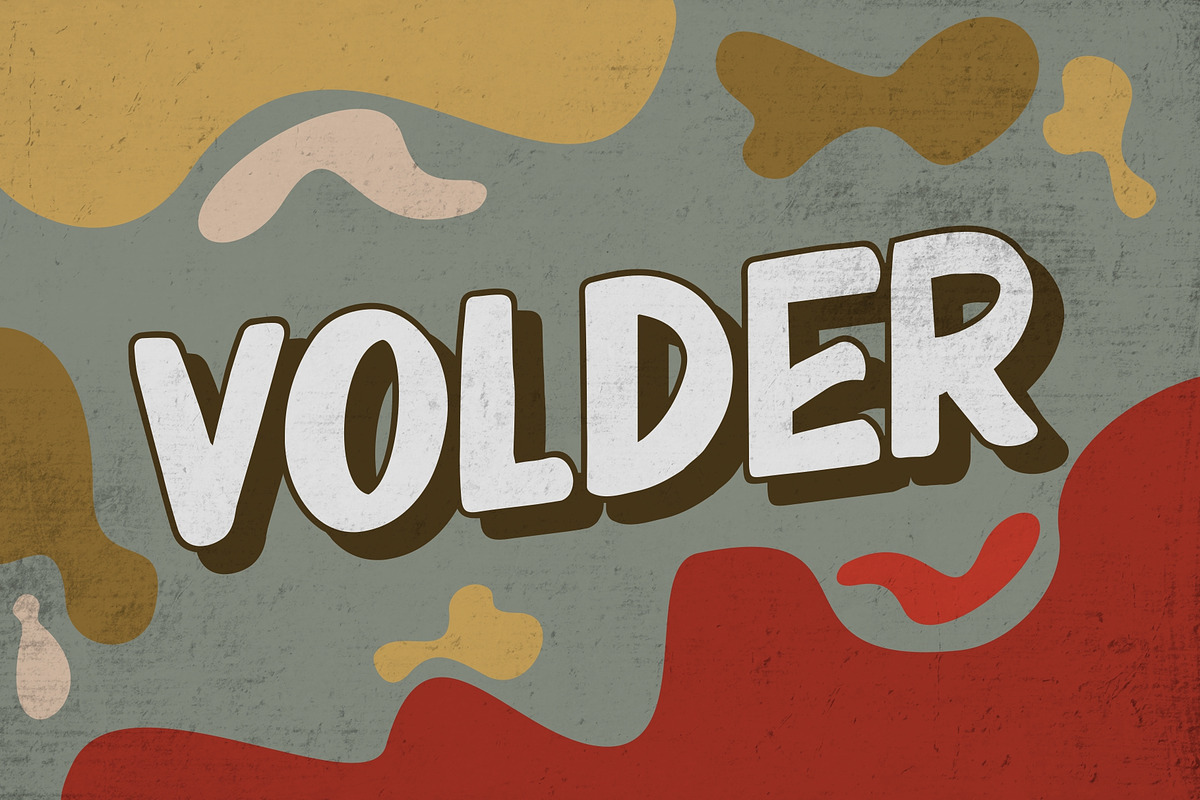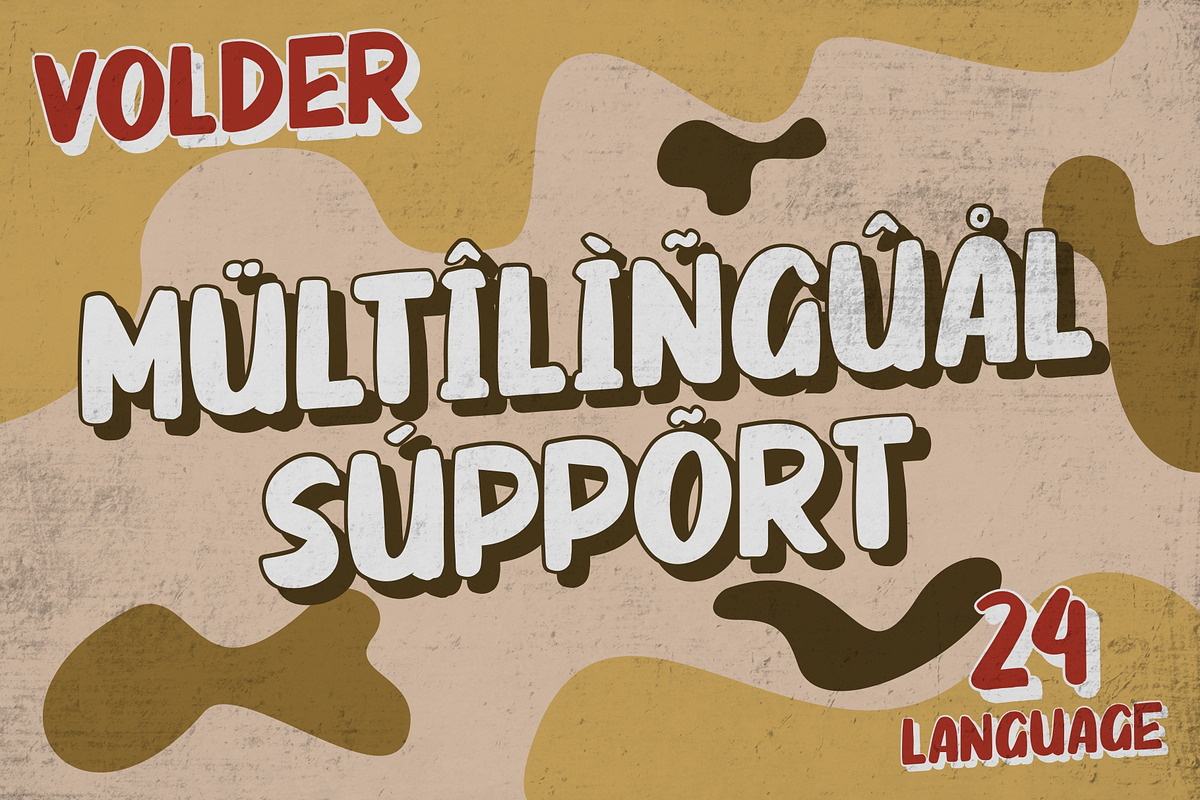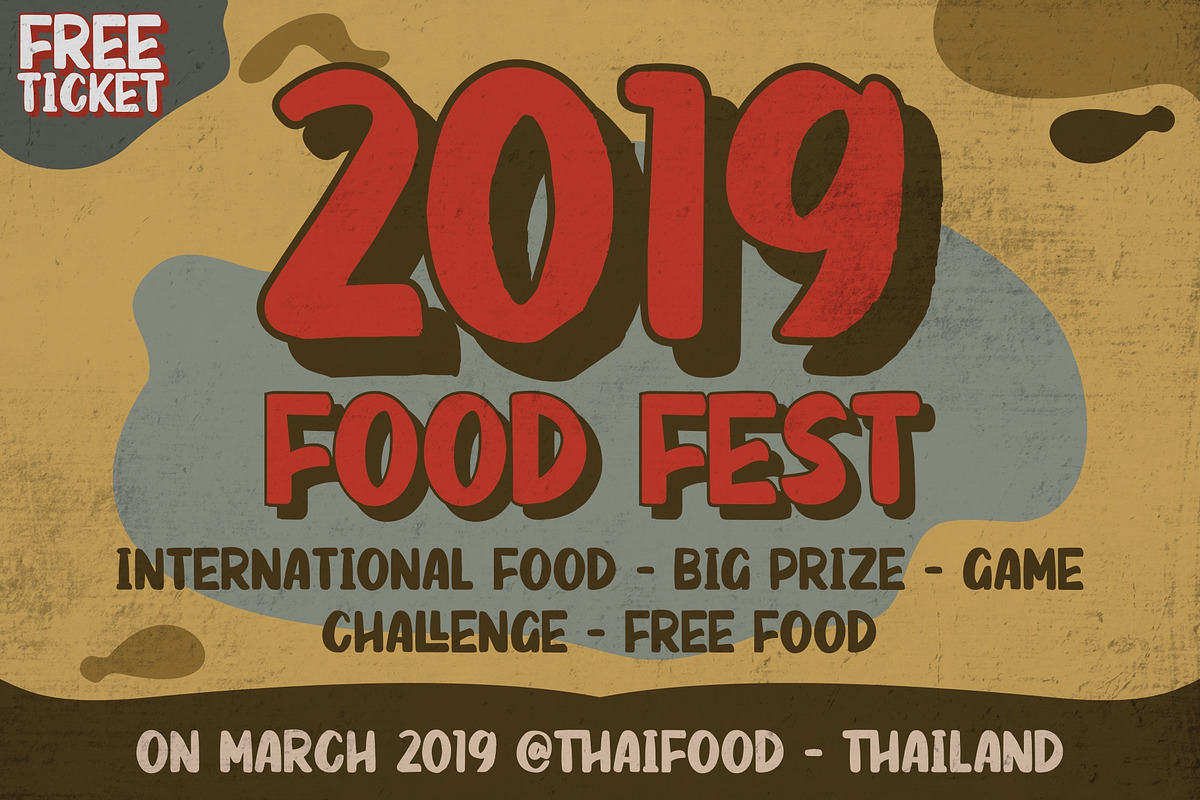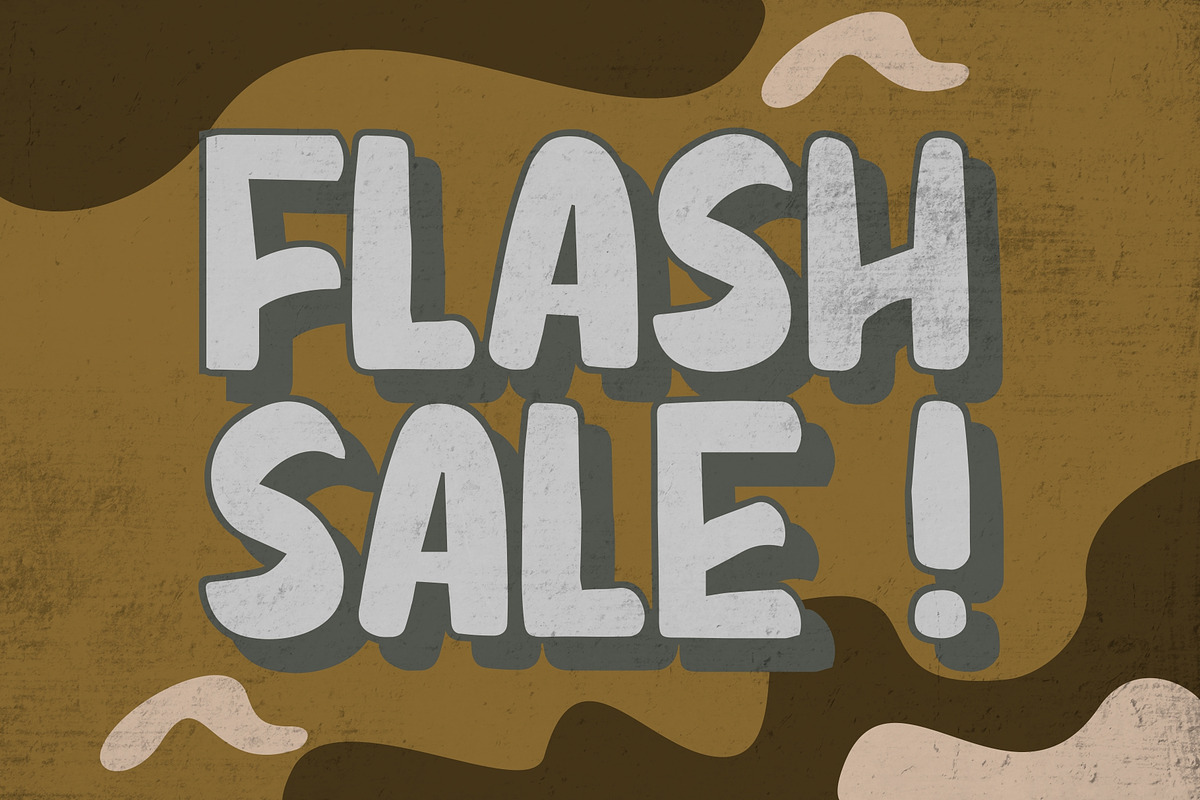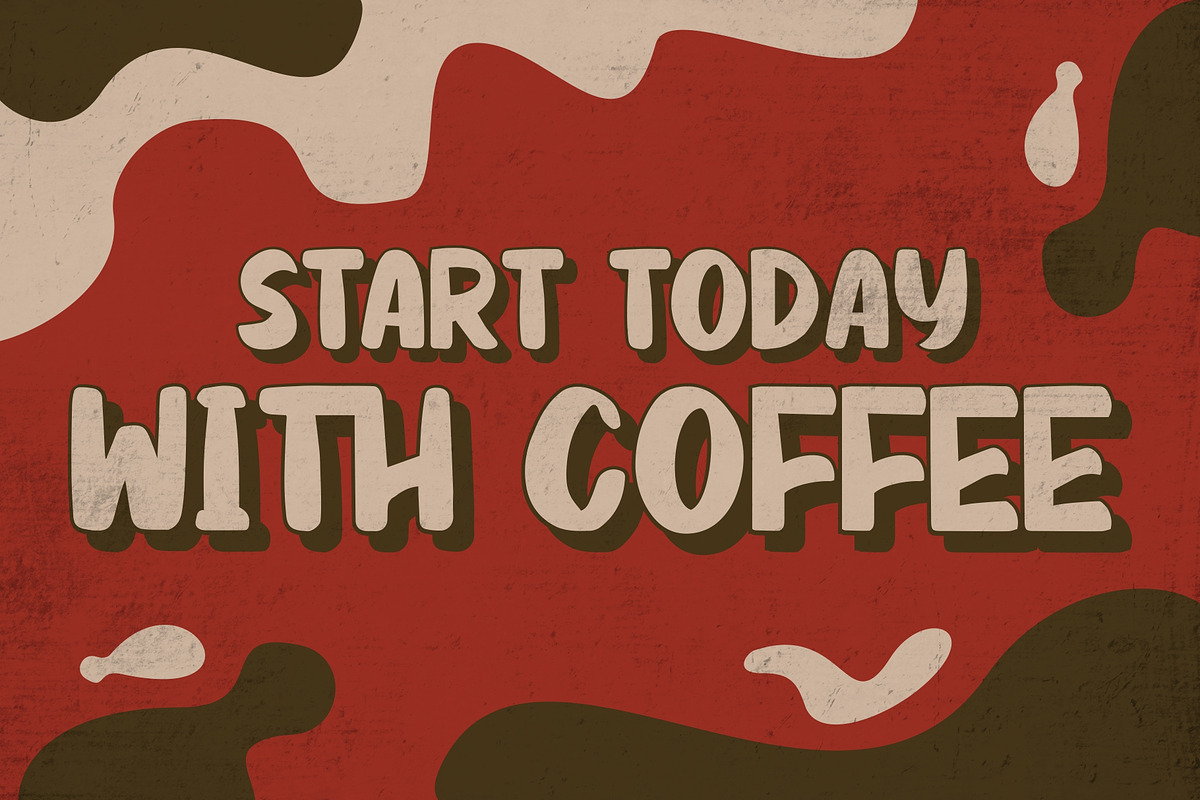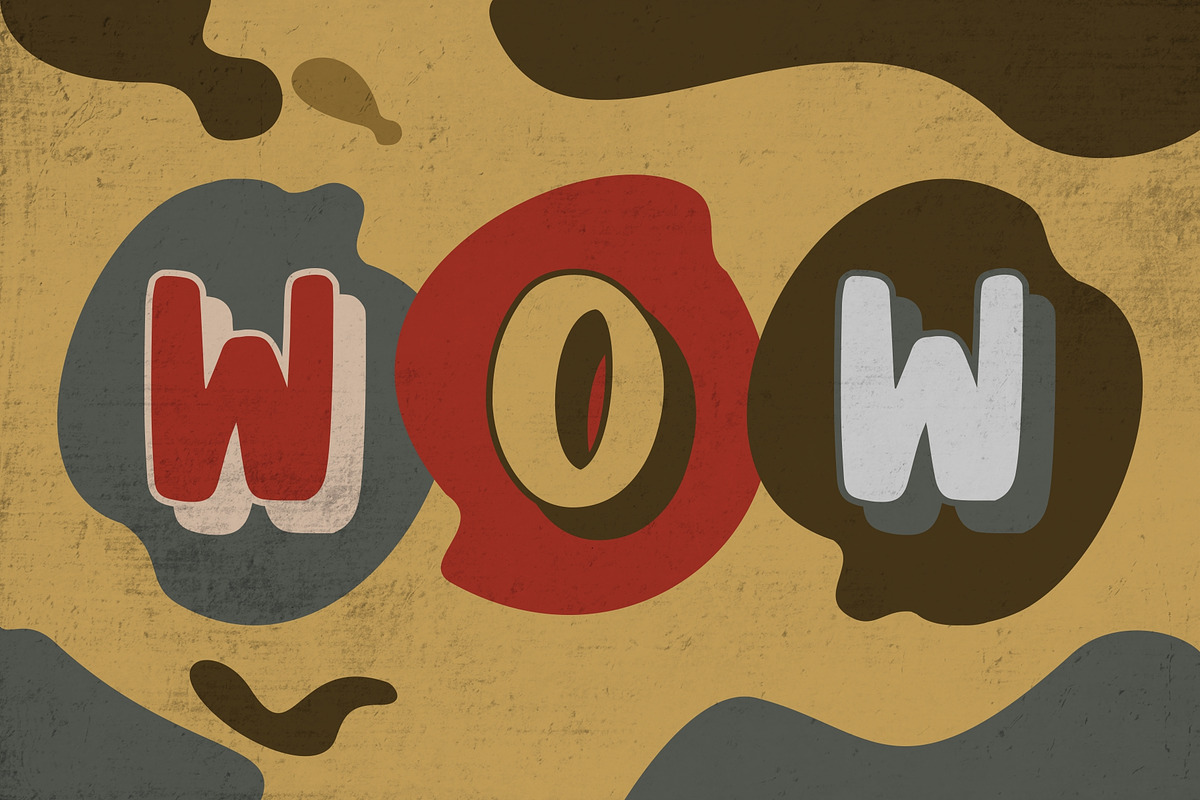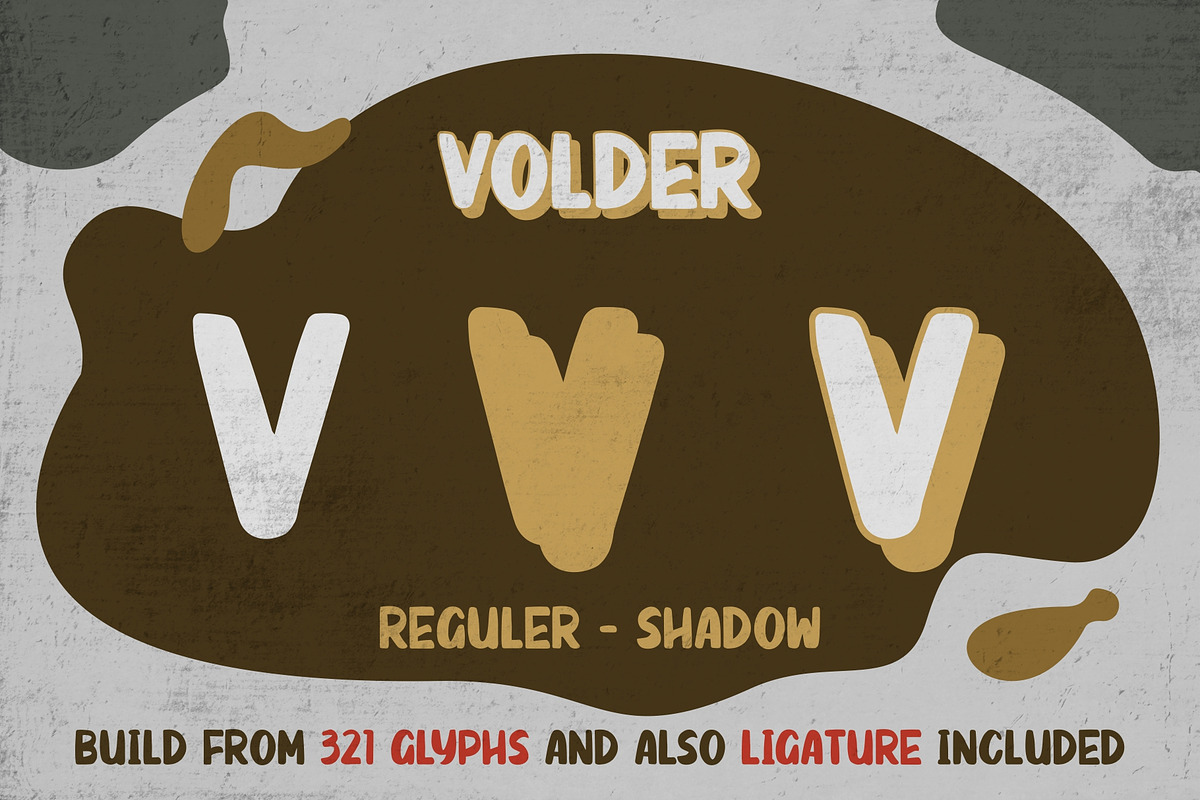
VOLDER RETRO FONTS + SHADOW
VOLDER is here before you. Thick and warm fonts are perfect for use in various design needs and your great work.
You will get the greatness of this font with additional shadow and strong and bold characters. So it is very suitable for posters, webfonts, t-shirts, branding, packaging, advertising, packaging, or even logos.
Multilingual support: ÀÁÂÃÄÅÇÈÉÊËÌÍÎÏÑÒÓÔÕÖØÙÚÛÜÝßàáâãäåæçèéêëìíîïñòóôõöøùúûüýÿ (Supports 24 languages)
- Ligature opentype
VOLDER RETRO FONTS + SHADOW by Good Java Studio fits naturally into Branding, posters, packaging, typography.